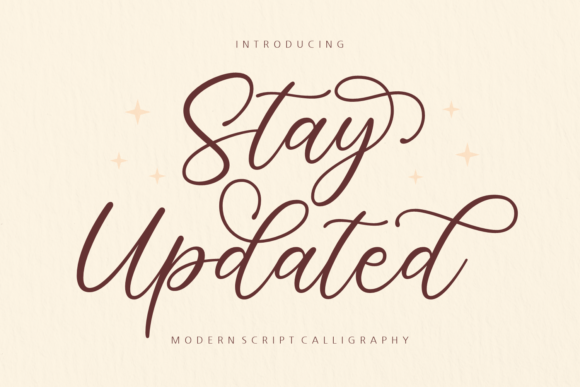
Journey into the world of exquisite typography with Stay Updated Font, the captivating script font that embodies elegance and modernity. This meticulously crafted font family is a testament to the allure of hand-lettered artistry, featuring graceful curves that flow effortlessly like a gentle stream. Its refined design lends a touch of sophistication to any project, be it branding, wedding invitations, or the vibrant world of social media graphics.
As a font inspired by the beauty of calligraphy, Stay Updated Font radiates a timeless appeal that transcends fleeting trends. Its versatility makes it the perfect companion for a multitude of creative endeavors. Envision your words dancing across the page, adorned with the charm of Stay Updated Font's meticulously crafted characters. Let your designs blossom with a touch of refinement, leaving a lasting impression on all who behold them.
With Stay Updated Font, you're not merely downloading a font; you're embarking on a journey of self-expression and visual artistry. Whether you're a seasoned designer or just beginning your creative exploration, this font will unveil a world of endless possibilities. Its user-friendly nature makes it accessible to all, inviting you to transform your vision into tangible beauty.
Unlock the boundless potential of Stay Updated Font and witness your designs soar to new heights. Indulge in the elegance of its curves, the fluidity of its strokes, and the timeless beauty it brings to your creations. Let your imagination run wild as you explore the myriad ways in which this modern calligraphy font can elevate your designs.